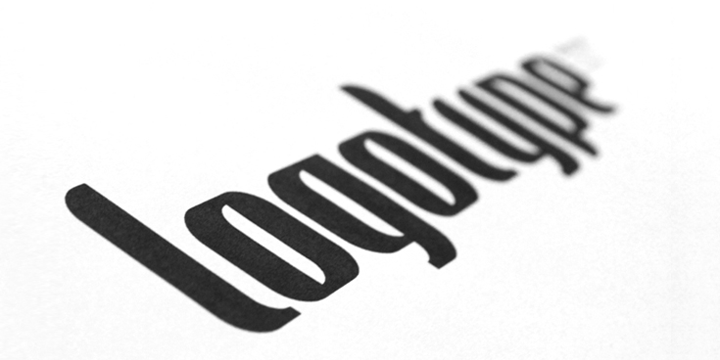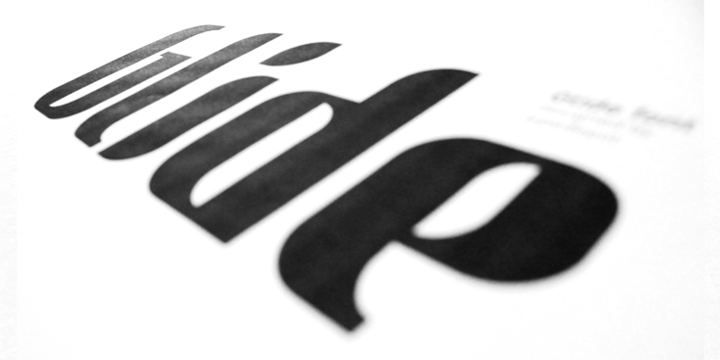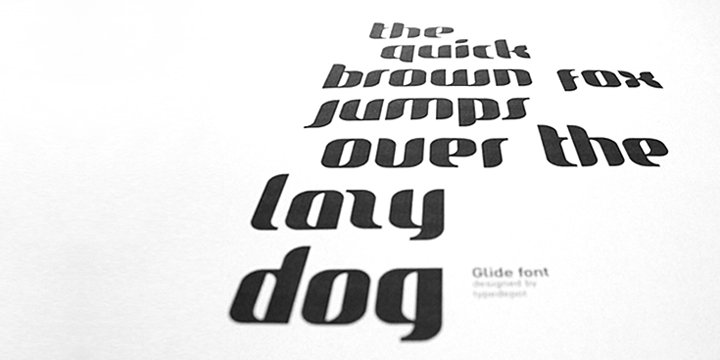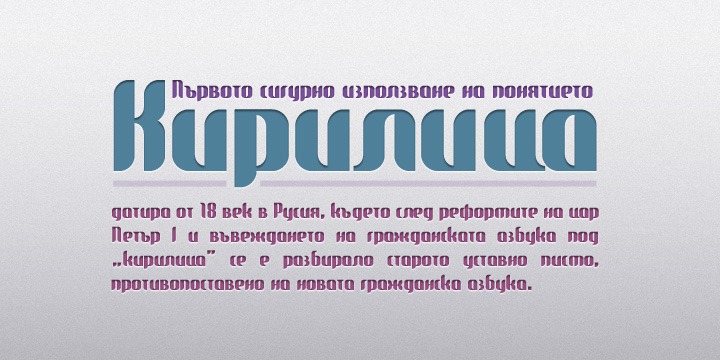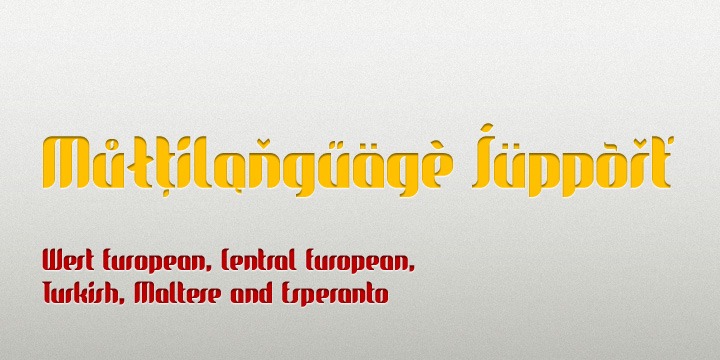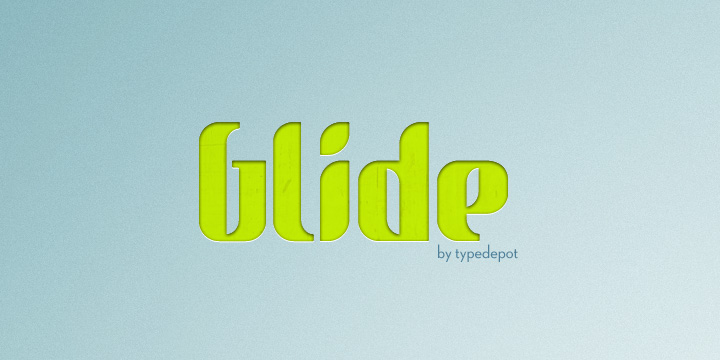
Glide Font Family
Elegant custom font with rounded corners, great for logos, posters, motion graphics and t-shirts.
The name is inspired by the sleek curves and its smooth look.
Glide
Glidesketch